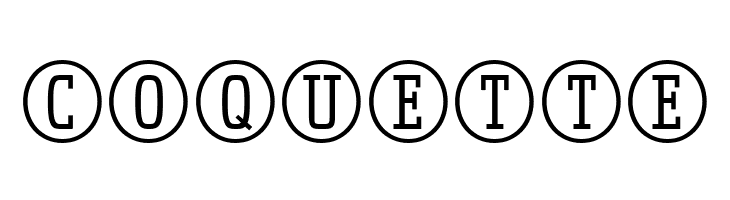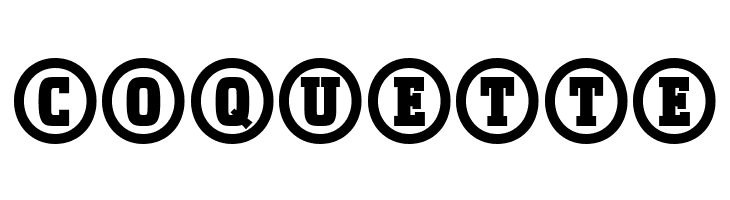
A clean and modern slab serif font with balanced stroke width and clear characters.
A bold, circular-enclosed font with a modern and striking appearance.
A modern, decorative font with characters enclosed in circles, offering a playful yet structured look.